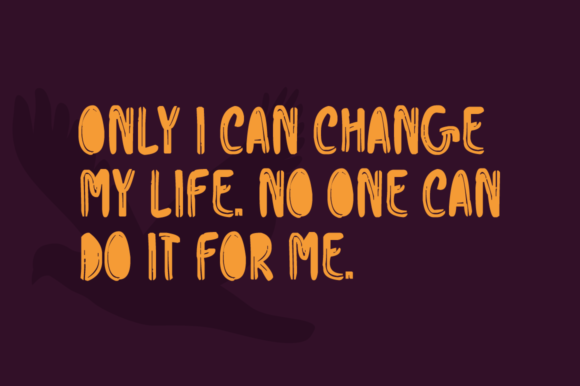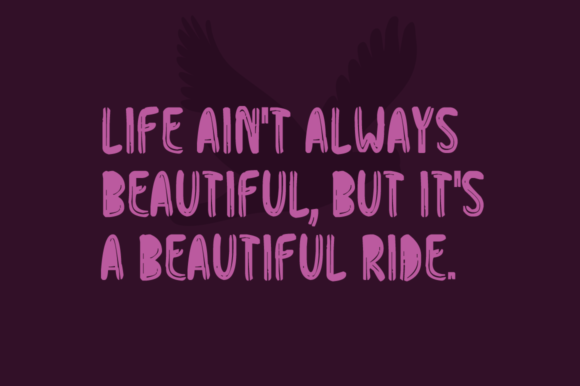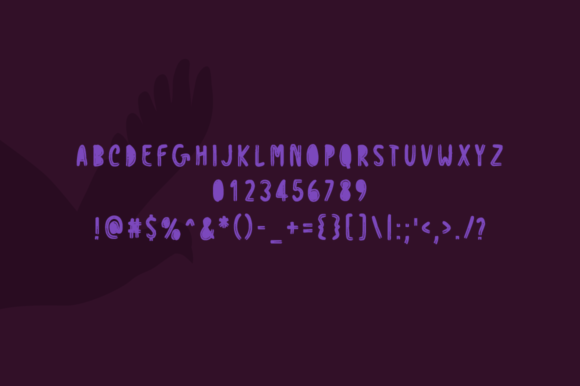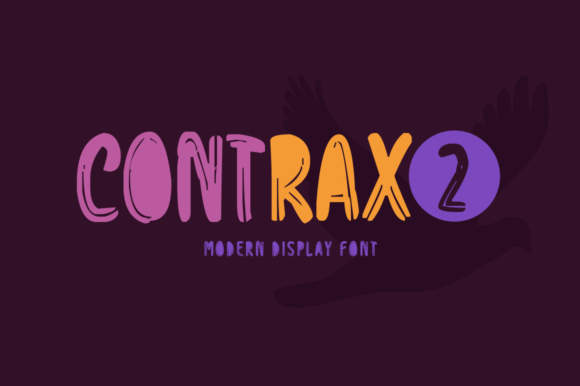
Introducing Contrax Two Font: Elevate Your Designs with a Touch of Experimental Elegance
In the ever-evolving world of design, a great font can make all the difference. It’s the perfect tool to convey your message, add personality to your project, and capture the attention of your audience. If you’re on the hunt for a font that is both beautiful and experimental, look no further than Contrax Two. This brand new display font is designed to add a spark to any design project, making it a must-have for designers and crafters alike.
What is Contrax Two Font?
Contrax Two is a cutting-edge display font that is sure to turn heads. Its unique design combines sleek lines and elegant curves, creating a visually stunning effect that will elevate your designs to the next level. Whether you’re working on a branding project, a website, or a craft, Contrax Two is the perfect choice for those looking to add a touch of sophistication and experimental flair.
Key Features of Contrax Two Font
So, what makes Contrax Two stand out from the crowd? Here are a few key features that make this font a game-changer:
• Unique Design: Contrax Two boasts a distinctive design that is both modern and elegant. Its sleek lines and flowing curves create a beautiful visual effect that will add a touch of sophistication to any project.
• Experimental Edge: This font is not afraid to push boundaries. Its experimental design makes it perfect for designers and crafters who want to try something new and exciting.
• Display Font: Contrax Two is specifically designed as a display font, making it perfect for headlines, titles, and other prominent text elements.
• Versatility: Whether you’re working on a digital project or a print design, Contrax Two is versatile enough to shine in any medium.
How to Use Contrax Two Font in Your Designs
Now that you’re excited about Contrax Two, let’s talk about how to incorporate it into your designs. Here are a few ideas to get you started:
• Headlines and Titles: Use Contrax Two to create eye-catching headlines and titles that will grab attention and draw readers in.
• Branding Projects: Add a touch of elegance and sophistication to your branding projects with Contrax Two. It’s perfect for logos, business cards, and other marketing materials.
• Web Design: Elevate your website with Contrax Two. Use it for headings, subheadings, and other prominent text elements to create a visually stunning effect.
• Crafting and DIY Projects: Contrax Two is also perfect for crafters and DIY enthusiasts. Use it to add a personal touch to your handmade cards, scrapbooking, and other craft projects.
Tips for Getting the Most Out of Contrax Two Font
To ensure you get the most out of Contrax Two, here are a few tips to keep in mind:
• Experiment with Sizes: Don’t be afraid to experiment with different sizes to see how Contrax Two looks in various contexts.
• Play with Colors: Try out different colors to see how they interact with the font. Contrax Two looks great in bold, bright colors, but it can also be stunning in more muted tones.
• Mix and Match: Don’t be afraid to mix and match Contrax Two with other fonts. Its unique design makes it a great pairing with a wide range of typefaces.
Author Nuovo Tocco
Contrax Two is a game-changing display font that is sure to add a touch of experimental elegance to any design project. Its unique design, versatility, and experimental edge make it a must-have for designers and crafters alike. Whether you’re working on a branding project, a website, or a craft, Contrax Two is the perfect choice for those looking to elevate their designs and capture attention. So why wait? Download Contrax Two today and see how it can transform your designs!